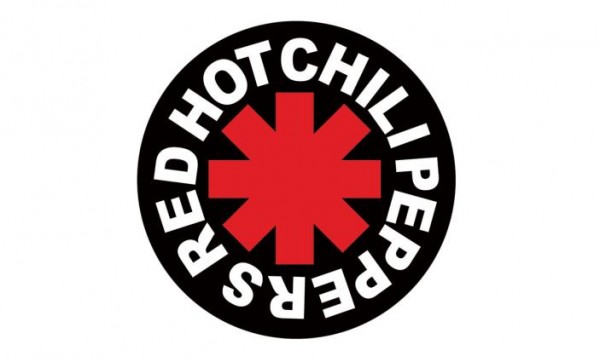
Red Hot Chili Peppers Font
BandRed Hot Chili Peppers (RHCP) is an American rock band formed in Los Angeles in 1983. The group's musical style primarily consists of rock with an emphasis on punk, and psychedelic rock. RHCP's logo features an eight-pronged red asterisk surrounded by the band name.
The font used for the band name above is most probably Arial Black. In 1989, the album Mother’s Milk featured a different font, Franklin Gothic for its cover art.
The logo above is from their official website, and features a pink symbol with left-hand initials. ITC Avant Garde Gothic Bold Condensed is used for the lettering of the band initials.